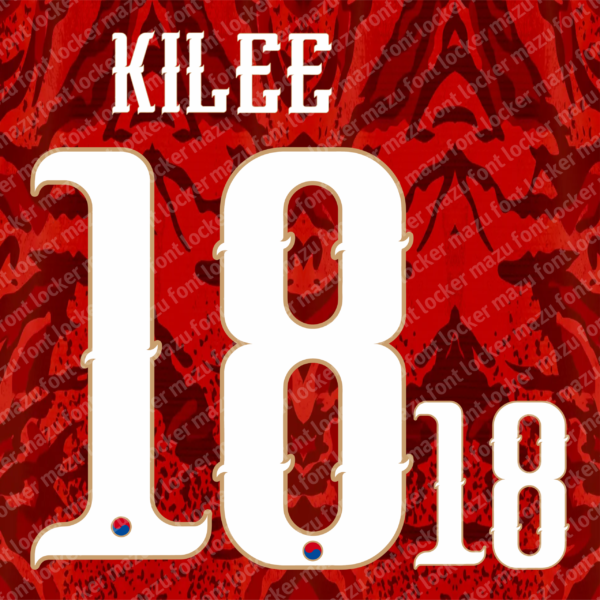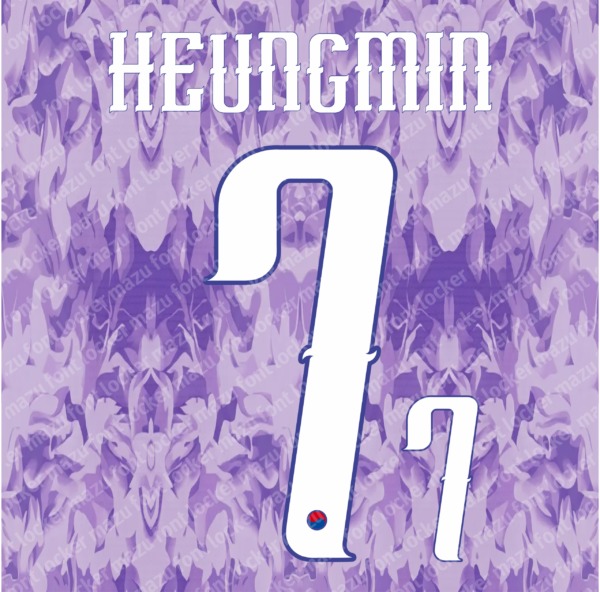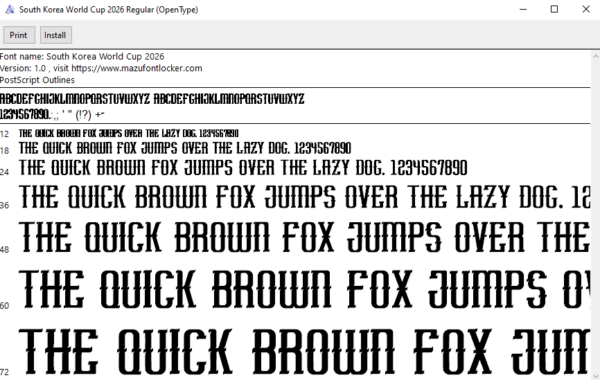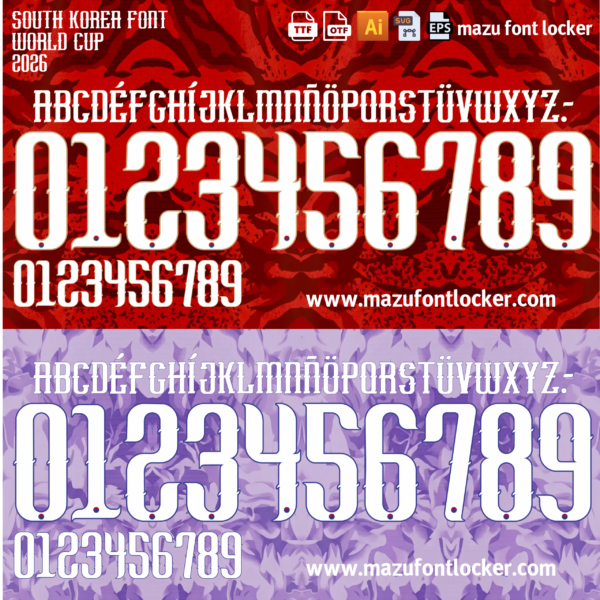
South Korea World Cup 2026 Font Vector – Fearless Taegeuk Warriors Masterpiece
This premium font faithfully recreates the official match lettering worn by South Korea during the FIFA World Cup 2026 — delivering authentic Korean football identity, legendary Asian football heritage, fearless warrior mentality, explosive attacking energy, disciplined teamwork, passionate national pride, and the unmistakable red-and-blue Taegeuk spirit that continues to inspire millions of supporters across the world.
South Korea World Cup 2026 Font Vector – Powerful Taegeuk Warriors Tournament Typeface
The South Korea World Cup 2026 Font Vector is a premium typeface that accurately recreates the official match lettering worn by the South Korea national football team during the 2026 FIFA World Cup. This high-quality vector font kit captures the bold, modern, and dynamic typography featured on Korea’s tournament kits, perfectly complementing the nation’s iconic red, blue, and white identity as the Taegeuk Warriors compete on football’s biggest stage.
Designed for professional designers, football enthusiasts, collectors, and passionate South Korea supporters, the South Korea World Cup 2026 Font Vector delivers exceptional authenticity for creating realistic jersey mockups, football merchandise, social media graphics, tournament posters, and custom fan artwork. Every character has been carefully recreated to reflect the official shirt lettering used throughout the 2026 FIFA World Cup.
This font stands out thanks to its precise vector construction and tournament-accurate styling. Every letter and numeral has been meticulously recreated to match the official jersey typography worn by South Korea during the 2026 FIFA World Cup. Whether you’re producing realistic kit concepts or creating eye-catching football content, the South Korea World Cup 2026 Font Vector delivers a genuine professional appearance.
The lettering featured in the South Korea World Cup 2026 Font Vector combines powerful geometric forms with clean modern proportions. The result is a highly readable and professional design that reflects the speed, confidence, and fighting spirit of the Taegeuk Warriors on the international stage.
The numerals feature sharp detailing, balanced curves, and excellent spacing for maximum visibility during matches. Built entirely as scalable vectors, every number remains crisp for jersey customization, digital graphics, posters, and large-format printing.
• Complete uppercase A–Z alphabet and numbers 0–9 in authentic South Korea World Cup 2026 style
• Includes authentic federation crest glyph placement beneath player numbers
The South Korea World Cup 2026 Font Vector is an independently designed typeface package inspired by the official shirt lettering used during the 2026 FIFA World Cup. It has been carefully recreated for football enthusiasts, graphic designers, collectors, and creators producing custom jersey concepts, tournament artwork, and fan-made projects.